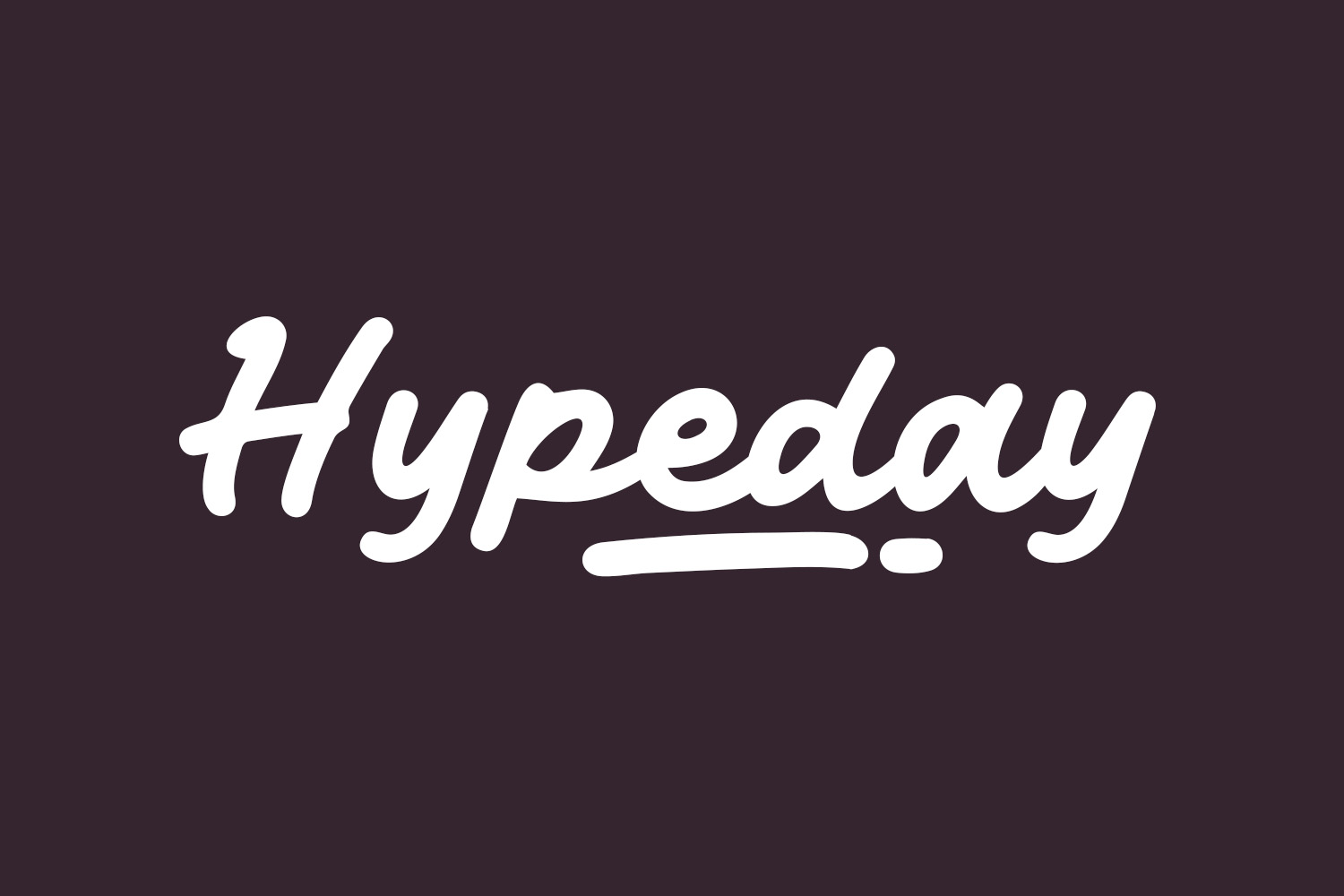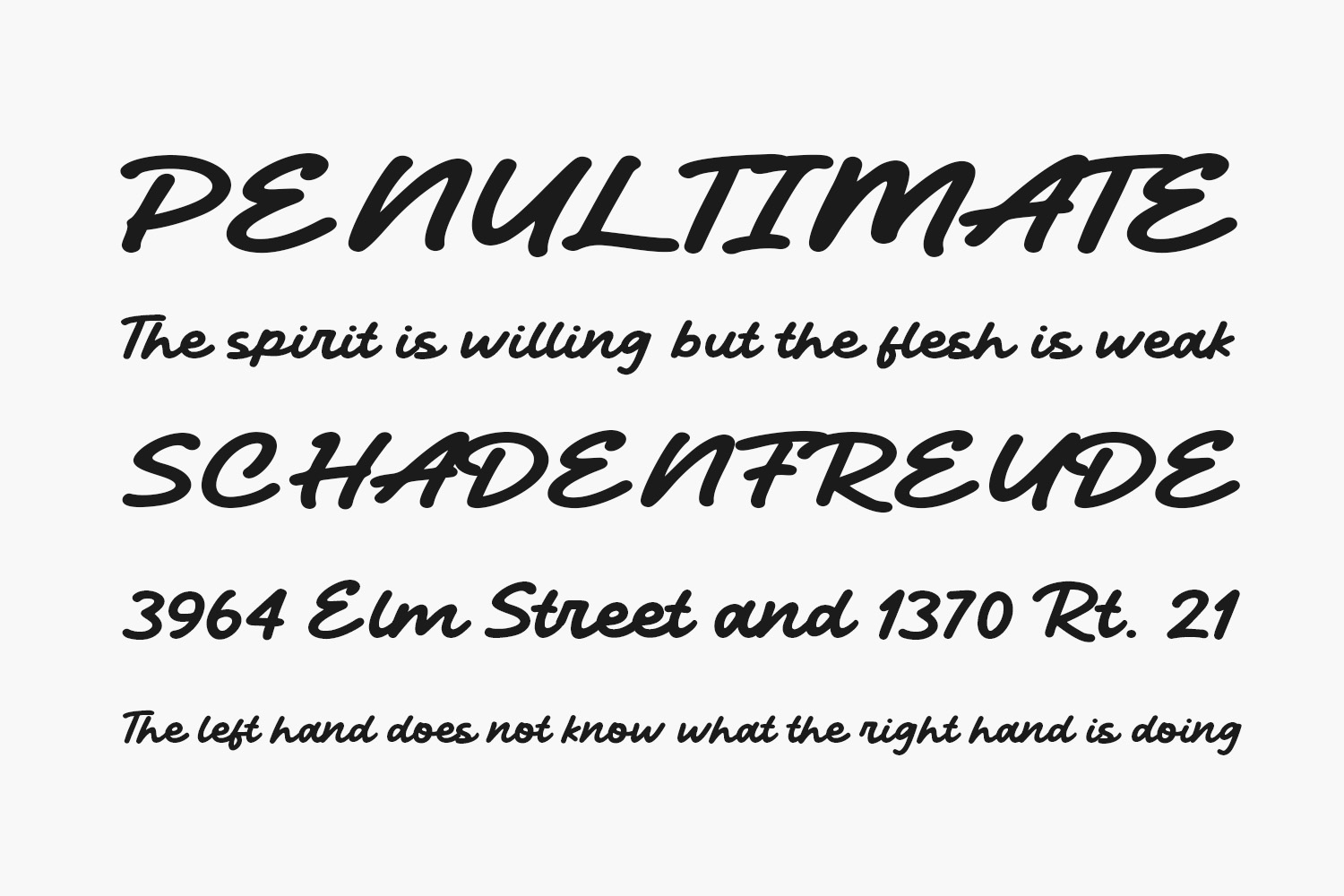
Introducing Hypeday Free Font, a contemporary and charming bold script font designed for versatility. Ideal for posters, logos, magazines, book covers, banners, and various other creative projects! Acquire this exceptional font to infuse your designs with a delightful touch. Its adaptability makes it a seamless fit for a wide range of projects, ensuring that your creative ideas truly shine. Enhance your designs and watch them stand out with the modern and cute appeal of Hypeday. Hypeday Free Font is free for personal use only. Please purchase the full version for commercial use.